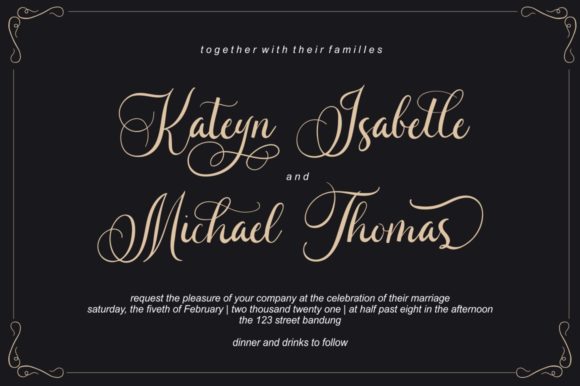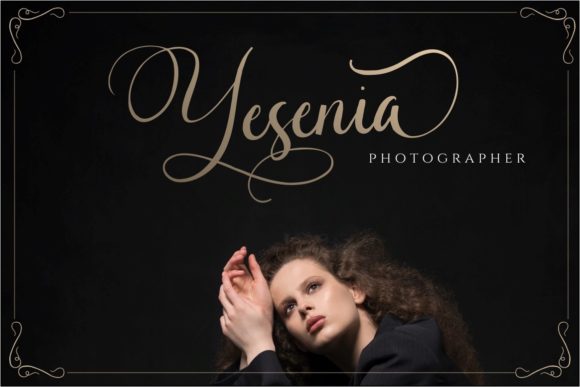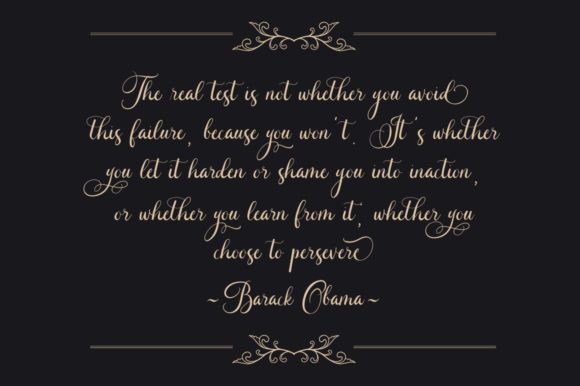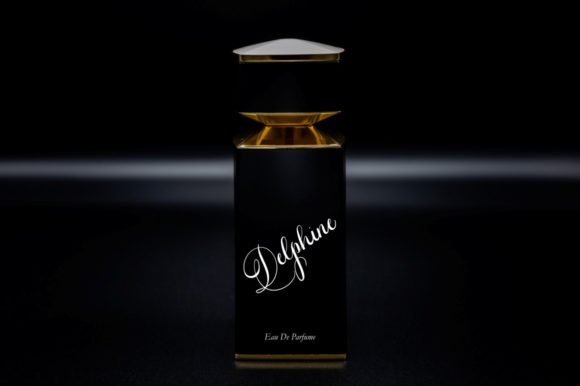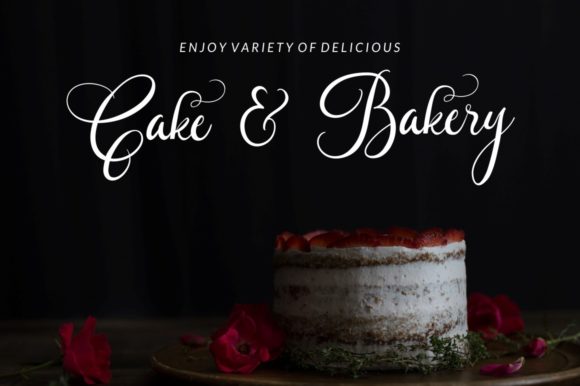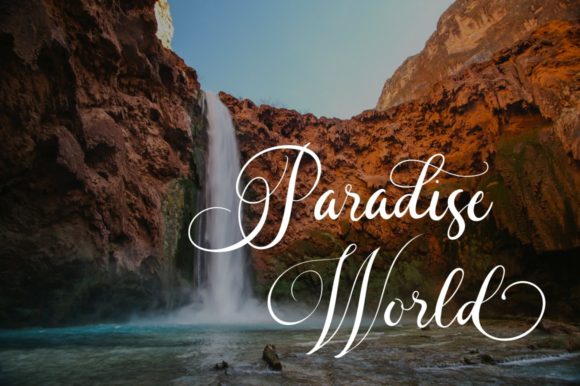
A Delicate Touch of Elegance: Caliner Script Font
Have you ever stared at a blank canvas, struggling to find the perfect font to bring your design to life? I know I have. The blank page can be intimidating, but sometimes all it takes is one beautiful script font to spark creativity. For designers seeking a fresh and sophisticated look, Caliner Script Font is the perfect solution.
Caliner Script Font is a lovely and delicate script font that exudes elegance and class, making it perfect for those who need a beautiful and refreshing look to their designs. Its PUA encoding allows designers to access all of the glyphs and swashes with ease, giving them the freedom to create unique and personalized designs.
- Unique Characteristics: This script font features a unique, elegant, and cursive design, making it ideal for creative and artistic projects, such as invitations, wedding designs, and luxury branding
Caliner Script Font Review
As a designer, I was excited to dive into the world of Caliner Script Font. This beautiful script font is sure to make any design stand out ✨. Here are a few things that I think work particularly well:
- Elegant and whimsical feel: Caliner Script Font has a unique, hand-written feel that adds a touch of elegance to any design.
- Wide range of usage: From wedding invitations to branding materials, this font is versatile and can be used in a variety of contexts.
- High-quality glyphs: The font includes a wide range of glyphs, including swashes and ligatures, which add to its charm.
However, as with any font, there are some limitations to consider ⚠️:
- Limited language support: Caliner Script Font may not be suitable for languages that require a high level of complexity, such as Arabic or Chinese.
- Not ideal for small text sizes: Due to its decorative nature, Caliner Script Font may not be the best choice for small text sizes, where clarity is key.
Overall, I think Caliner Script Font is a beautiful addition to any designer’s toolkit. While it may have some limitations, its unique charm and versatility make it a great choice for a wide range of design projects.
Tips for Getting the Most Out of Caliner Script Font
Use Caliner Script Font for titles, headings, and quotes to add a touch of elegance and sophistication to your designs.
Pair Caliner Script Font with a clean and simple font, such as Arial or Helvetica, to create a beautiful contrast and balance.
Experiment with different font sizes and styles to create a visually appealing hierarchy of text.
Quote graphics and social media posts
Book covers and author websites
Alternatives to Caliner Script Font
Caliner Script Font is a beautiful, elegant script font, but sometimes you may need alternatives for specific projects. Here are a few options:
Great Vibes Font is a modern, elegant script font with a playful feel. It’s perfect for designs that need a touch of sophistication and creativity. Great Vibes Font is more condensed than Caliner Script Font, making it ideal for smaller text blocks or titles.
Lobster Font is a fun, casual script font that’s great for designs that need a relaxed, friendly feel. It’s perfect for social media, advertising, and other informal projects. Lobster Font is more cursive than Caliner Script Font, making it ideal for longer text blocks or body copy.
Carolyna Pro Font is a elegant, sophisticated script font with a touch of modernity. It’s perfect for designs that need a high-end, luxurious feel. Carolyna Pro Font is more refined than Caliner Script Font, making it ideal for formal projects or luxury brands.